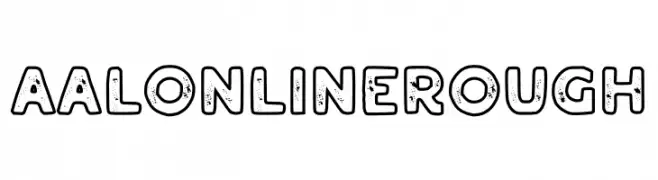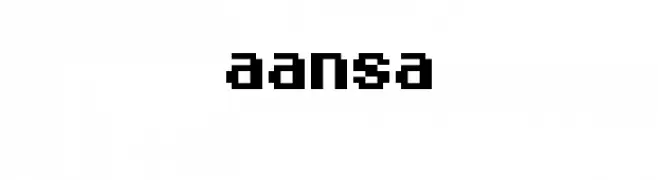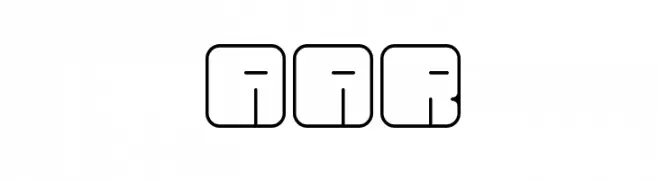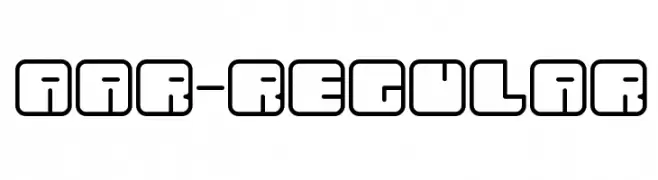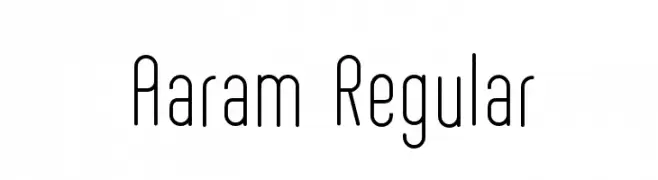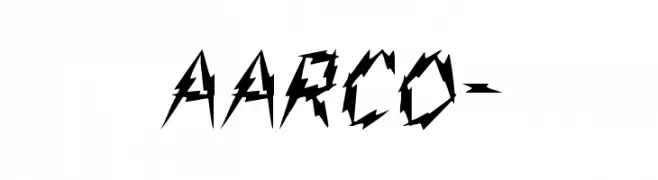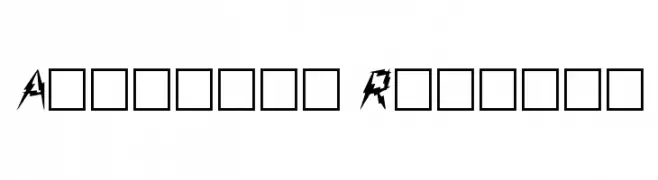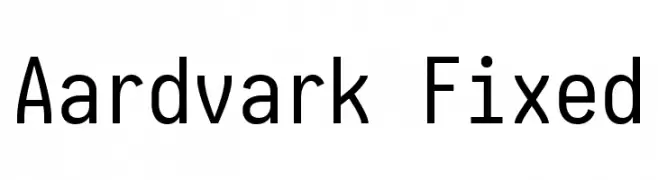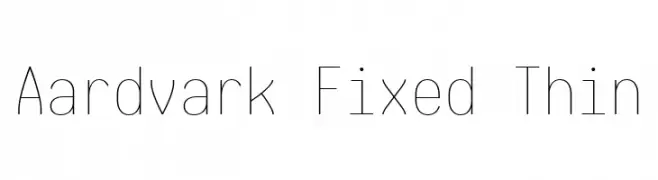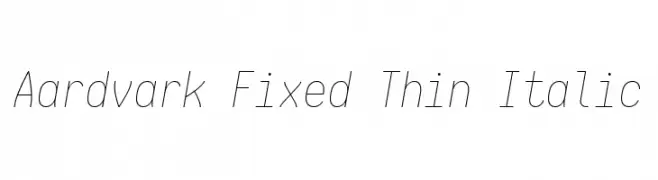
A bold, rounded font with a playful and approachable style.
A bold, outlined font with rounded edges and a playful style.
A bold, distressed outline font with a vintage, rugged appearance.
A bold, distressed font with a vintage, worn texture.
A graceful script font with fluid, cursive lines and elegant flourishes.
A whimsical, hand-drawn font with irregular strokes and a playful aesthetic.
A bold, pixelated font with a retro digital style.
An elegant script font with flowing, cursive lines and sophisticated flourishes.
A futuristic, geometric font with rounded edges and hollow interiors.
A bold, geometric font with rounded edges and a modern outline style.
A modern, monospaced font with tall, narrow characters and consistent stroke width.
A bold, jagged font with sharp, dynamic angles and an energetic appearance.
A pixelated, grid-like font with a retro digital aesthetic.
A clean, monospaced font with a modern aesthetic and excellent readability.
A bold, geometric font with rounded edges and consistent width.
Bold, italicized font with a strong, dynamic presence.
A bold, monospaced sans-serif font ideal for coding and headlines.
A modern, monospaced font with an extra light weight and geometric design.
A clean, extra-light italic monospaced font with a modern aesthetic.
A modern, monospaced italic font with medium contrast and clean lines.
A clean, monospaced font with a modern and geometric design.
A modern, light, and italic sans-serif font with a clean design.
A clean, monospaced font with geometric influences and consistent character width.
A modern, italic sans-serif font with medium contrast and balanced spacing.
A thin, monospaced font with a minimalist and modern design.
A thin, italicized monospaced font with a modern and minimalist design.
A wavy, hand-drawn font with a whimsical, energetic style.
A bold, italic serif font with dynamic strokes and elegant curves.